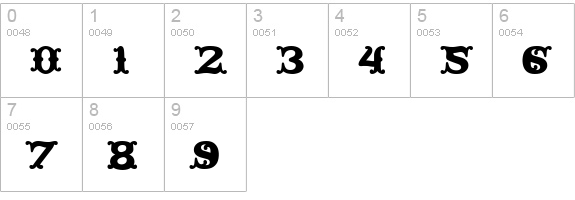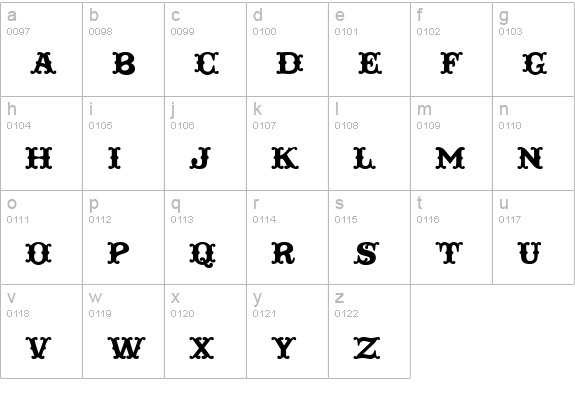
Introducing Taqueria Open Fill, a captivating and versatile font that will transport you to the vibrant streets of Mexico. Inspired by the traditional signage found in bustling taquerias, this font captures the essence of authentic Mexican street food culture. With its playful and lively design, Taqueria Open Fill is perfect for adding a touch of warmth and charm to your projects. Whether you are creating menus, posters, logos, or social media graphics, this font will infuse your designs with a sense of excitement and authenticity. Taqueria Open Fill is meticulously crafted to ensure legibility, even at smaller sizes. Its clean lines and well-defined shapes make it easy to read, while still retaining its unique style. This makes it ideal for a wide range of applications, from print to digital media. One of the best parts about Taqueria Open Fill is that it is completely free to download. You can find this delightful font at FontsMarket.com, a trusted source for high-quality fonts. Whether you are a professional designer or a hobbyist, you can freely access Taqueria Open Fill and enhance your creative projects without breaking the bank. So why wait? Spice up your designs with the lively and captivating Taqueria Open Fill font. Download it for free today at FontsMarket.com and bring a taste of Mexico to your creations.